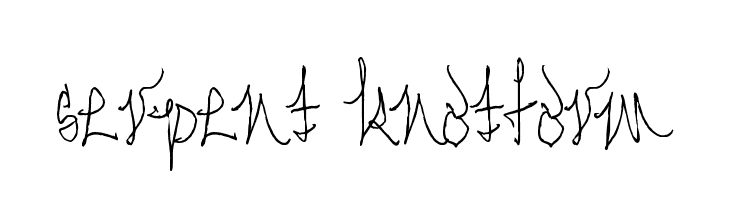
An intricate, decorative font with flowing, serpentine lines and artistic curves.
A hand-drawn font with an organic, textured appearance and uneven strokes.
A whimsical and flowing handwritten font with elegant, fluid strokes.